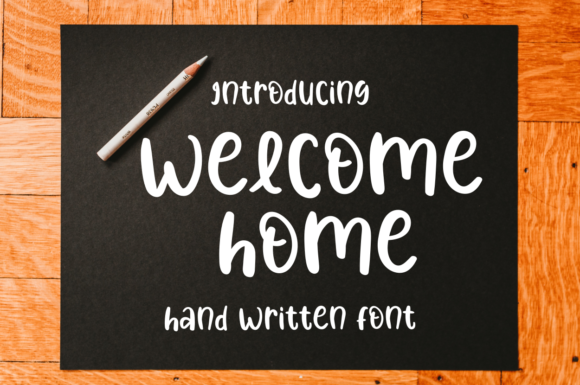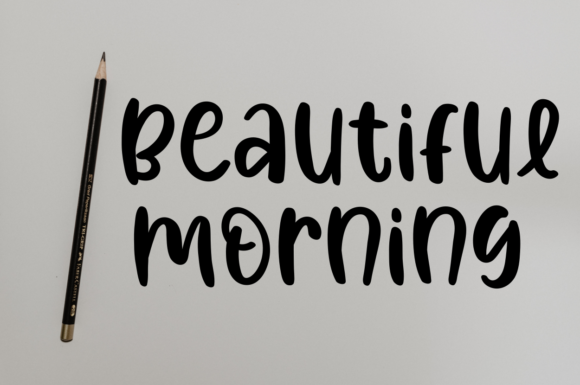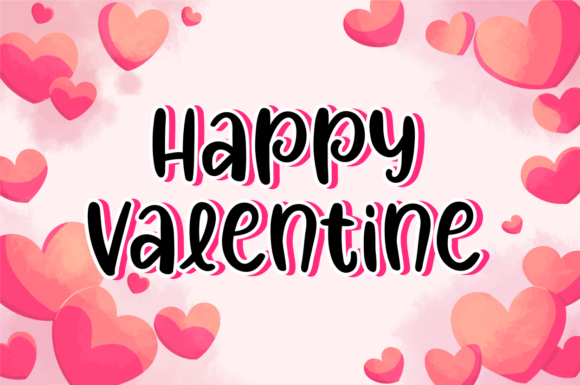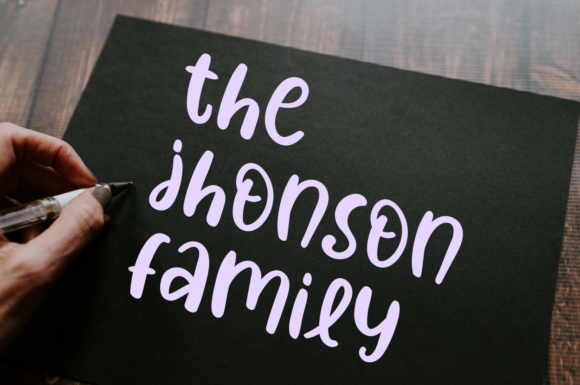
About Welcome Home Font
Welcome Home is a font that exudes delicacy and elegance in its handwritten style. With its distinct and well-rounded letters, this font becomes a masterpiece, adding a touch of sophistication and charm to your creative projects.
The delicate and elegant handwritten style of Welcome Home brings a sense of grace and beauty to your creations. Each letter carries the artistic and refined touch of handwriting, making your work stand out with a touch of timeless allure and authenticity.
With Welcome Home as your creative tool, you have the freedom to explore various design ideas. Whether you’re working on delicate and elegant projects or seeking a font that perfectly complements your versatile vision, Welcome Home adapts effortlessly to bring a sense of versatility and sophistication to your work.
Embrace the delicate and elegant vibe of Welcome Home and witness how it transforms your designs into spectacular works of art. Its well-rounded letters add a touch of authenticity, making your creations truly captivating and filled with a sense of beauty and creativity.
Discover the joy of creating with Welcome Home as your trusted companion. Let its handwritten appearance be the key to unlocking your creativity and infusing your work with a sense of elegance and refinement.
Whether you’re designing for personal projects or professional endeavors, Welcome Home is the font that adds that extra touch of flair and sophistication to your creations. Fall in love with Welcome Home and notice how its incredibly versatile style enhances the appeal and impact of your designs, making them truly special and unforgettable.
Let Welcome Home be the font that sparks your inspiration and brings a delicate and elegant touch to your designs. Experience the magic of Welcome Home and witness how it elevates your creative projects, making them truly spectacular and filled with a sense of timeless style and allure.